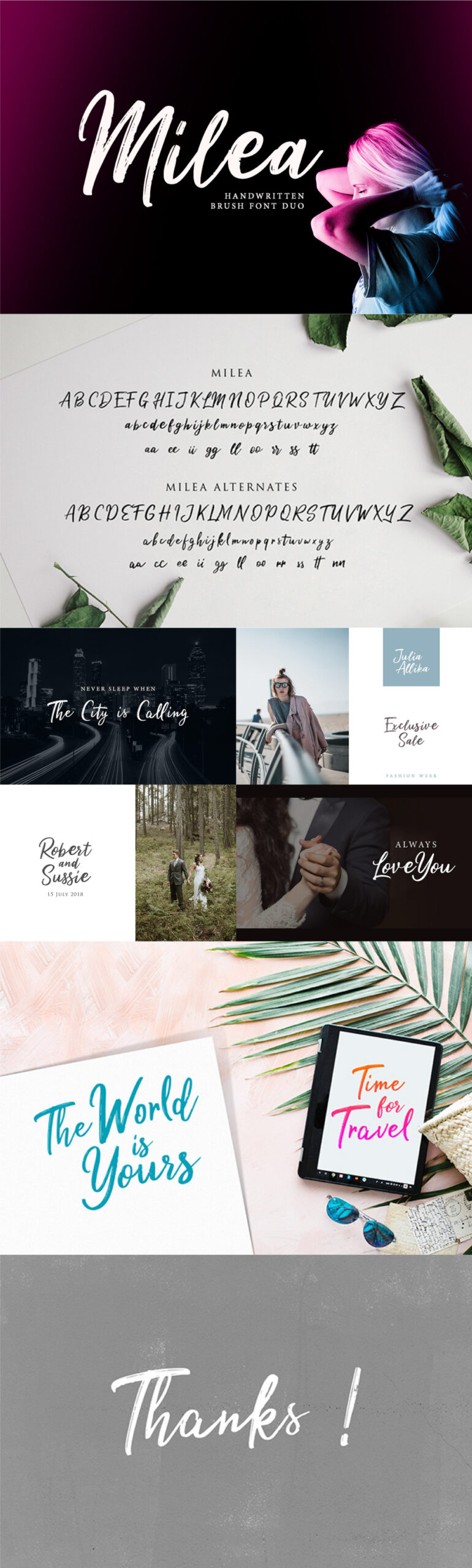
Are your fonts getting a little tired? Then it’s about time you updated your typeface toolbox! Milea Font Weape Studio is perfect for signature, branding, wedding designs, fashion, photography, posters, social media, ad banners, book covers, packaging, handwritten quotes, greeting cards and advertising. This free version of Milea is for personal use only. For the commercial use please go here.